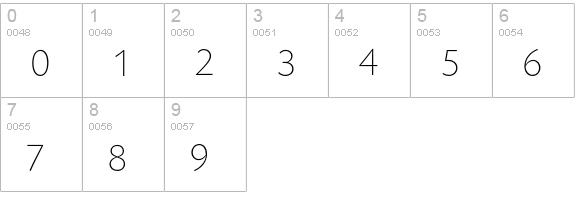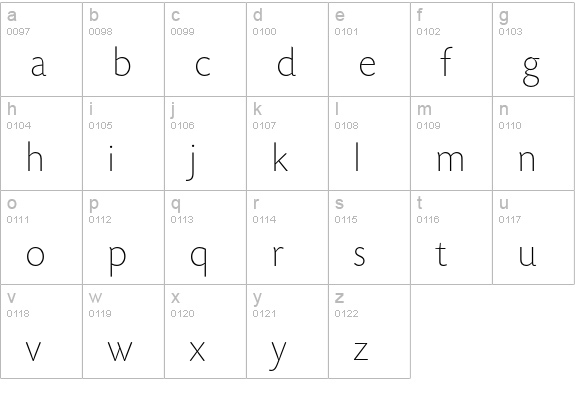
Today Sans Serif Extra Light Font Details
Today Sans Serif Extra Light is a refined, elegant variant in the Today typeface family \xE2\x80\x94 well suited to elegant body text, refined sub-headings, and luxury branding.
Today Sans Serif Extra Light font is a modern and stylish typeface that exudes elegance and sophistication. With its clean lines and sleek curves, this font is perfect for creating a contemporary and minimalist look in your designs. The Extra Light weight of this font adds a touch of delicacy and grace, making it ideal for projects that require a subtle and refined aesthetic. Its tall letterforms and generous spacing give it a spacious and airy feel, making it highly legible even at smaller sizes. Whether you are designing a logo, a website, or a print publication, Today Sans Serif Extra Light font will elevate your design to new heights. Its versatility allows it to be used for both headings and body text, ensuring a consistent and cohesive look throughout your project. And the best part is, Today Sans Serif Extra Light font is absolutely free! You can easily download it at FontsMarket.com and start using it in your designs right away. This means that you can enjoy the beauty and functionality of this font without having to spend a single penny. So why wait? Download Today Sans Serif Extra Light font now and add a touch of modern elegance to your designs. Whether you are a professional designer or a casual enthusiast, this font is sure to impress with its clean and sophisticated look. Don't miss out on this fantastic opportunity to enhance your projects with a high-quality, freely available font.